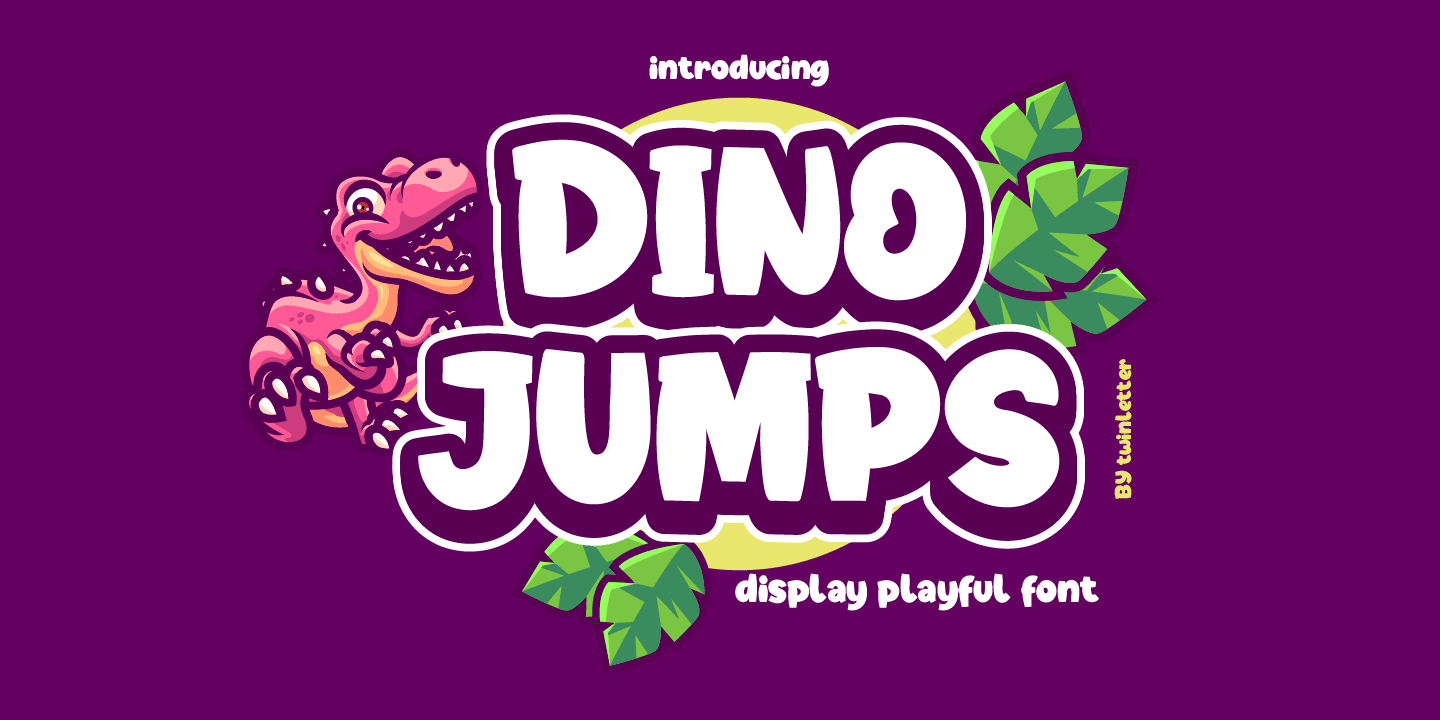
Dino Jumps Font excels in adventurous design applications including children's dinosaur-themed branding, prehistoric educational materials, adventure park signage, fossil museum graphics, paleontology book covers, dinosaur toy packaging, adventure gaming interfaces, and exciting advertising campaigns that require typography with prehistoric character and adventurous energy.
What makes Dino Jumps Font exciting is its incredible ability to bring prehistoric adventure to life through dynamically crafted letterforms that capture the raw power and playful energy of dinosaurs in motion. This thrilling typeface features bold characteristics with prehistoric details and jumping proportions that instantly communicate adventure, discovery, and ancient excitement. The font's dinosaur-inspired personality and adventurous appeal make it perfect for brands seeking to establish connection with young explorers and communicate values of discovery, adventure, and prehistoric wonder to audiences fascinated by ancient worlds.
Dino Jumps Font family includes various weights and prehistoric variations designed for comprehensive adventure communication. The family typically includes regular, bold, and extra-bold weights, complemented by jumping alternates, prehistoric ligatures, and extended character sets with dinosaur symbols that enhance its adventurous aesthetic and provide maximum prehistoric impact.
Adventure-themed designers consistently choose Dino Jumps Font Free Download for projects requiring typography that embodies prehistoric excitement and adventurous discovery. This dynamic typeface delivers exceptional visual impact across educational applications, from digital dinosaur learning platforms to physical museum displays, ensuring consistent brand messaging with unmistakable prehistoric authority and adventurous appeal. The font's dynamically crafted letterforms maintain excellent readability while delivering the exciting presence that adventure brands demand. Educational entertainment agencies worldwide rely on this prehistoric typeface to communicate brand values of discovery, adventure, and educational excitement. Jump into prehistoric adventure with Dino Jumps Font and create memorable visual communications that resonate with audiences who appreciate dinosaur wonder, prehistoric discovery, and the thrilling excitement of ancient adventures that bring the past to life.